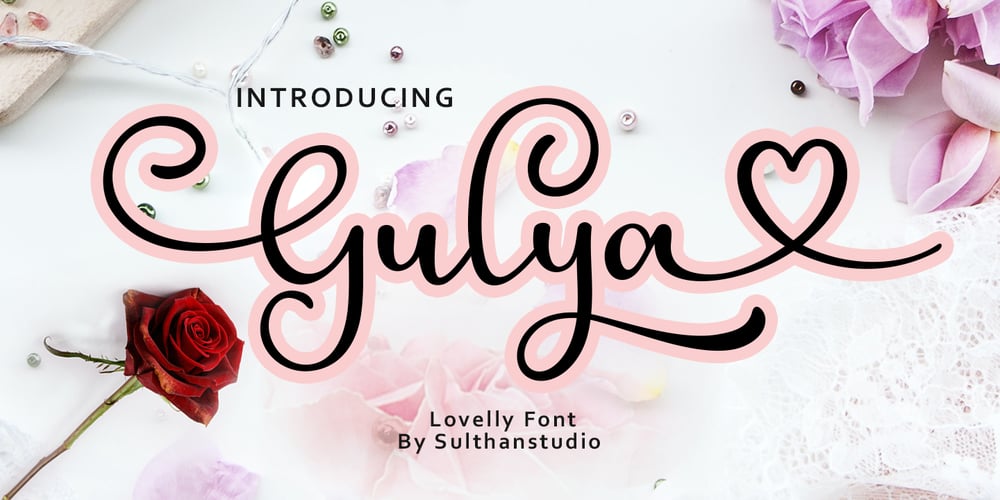
Guliya
Guliya font
Guliya Font Family was designed by Nasrullah and published by Sulthan Studio. Guliya contains 1 styles and family package options. Guliya is a charming script font. Fall for its ravishing style and use it to create gorgeous designs. This font is PUA encoded which means you can access all of the amazing glyphs and ligatures with ease!